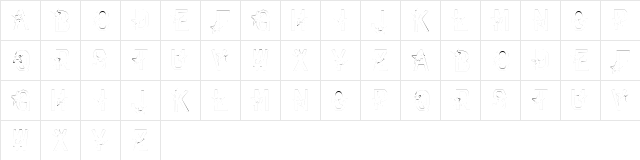
Star Hit Thin
Design Context for Star Hit Typeface
Star Hit offers clean, dependable letterforms without strong stylistic allegiance, making it a practical choice for designers who need flexibility. The delicate stroke weight brings airiness and refinement to layouts.